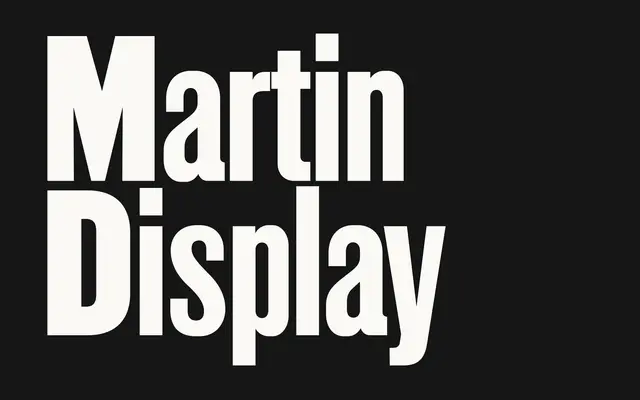
VTC Martin Display
Vocal Type · 2016
A wood type grotesque revival drawn directly from the letterpress 'I AM A MAN' placards carried during the 1968 Memphis sanitation workers' strike, digitised as a variable font with italics.
The letterforms originate from Hamilton Gothic No. 6243, a typeface from Hamilton's 1906 wood type catalogue, identified through a chance discovery of a 1960 Hamilton Wood Type specimen. Additional weights were drawn from related Hamilton Gothic faces, with punctuation sourced from early 1960s headlines of The Baltimore Afro-American Newspaper. VTC Martin Display stays closest to the original placard forms, bold in its uppercase and lighter in its lowercase, and now includes variable italics.
Derived directly from Hamilton Gothic No. 6243, a wood type grotesque from Hamilton's 1906 catalogue, with additional weights drawn from related Hamilton Gothic typefaces; the letterpress origin and protest placard source material place it firmly in the display category.